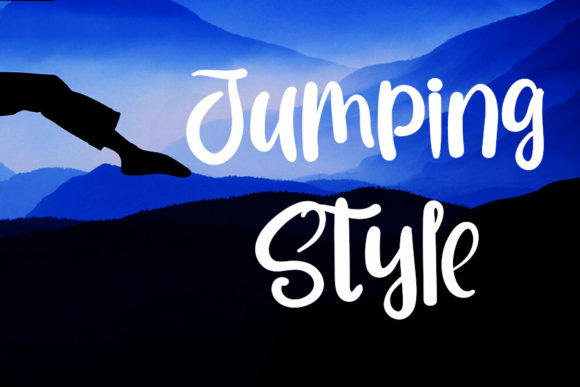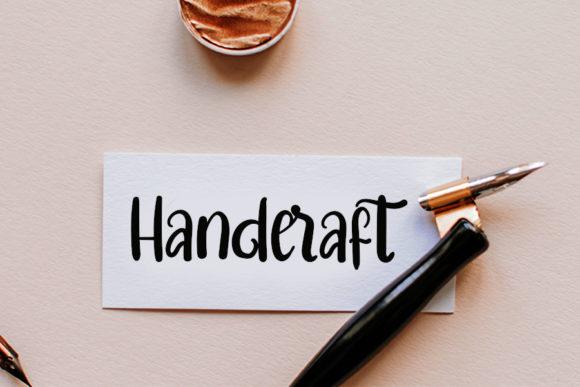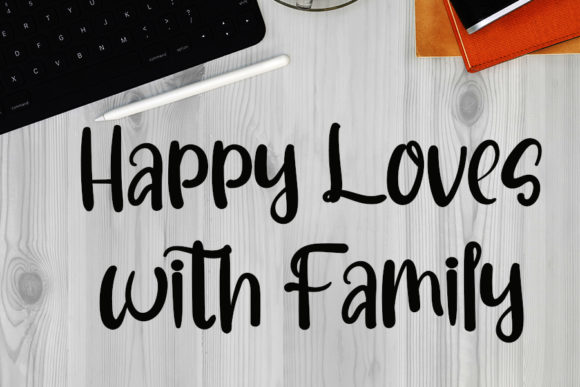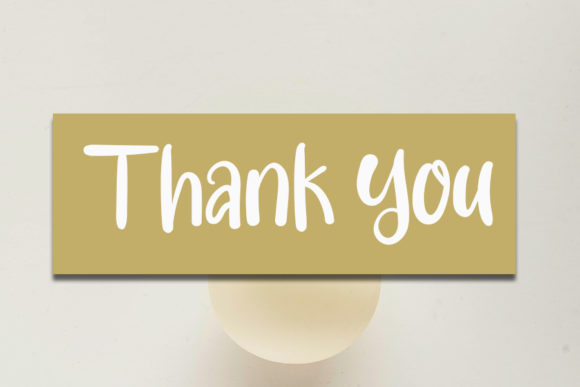
Introduction to Otivia Font
Have you ever found yourself sitting at your desk, surrounded by scraps of paper, glue sticks, and half-finished projects, feeling stuck and unsure of how to take your creative endeavors to the next level? You’re not alone. We’ve all been there, searching for that one special something to elevate our designs and make them truly stand out.
That’s where the Otivia Font comes in – a sweet and clean script font that’s sure to revolutionize your creative projects. With its elegant and trendy characters, this high-quality design resource is the perfect addition to any crafting project or design venture.
Key Features of Otivia Font
- Features a unique and elegant design, ideal for use in branding, typography, and other creative applications.
- Designed at a high resolution, ensuring crisp and clear text output, even at large sizes.
- Includes a comprehensive character set, making it suitable for use in a variety of languages and creative projects.
Honest Review: Otivia Font
I recently had the chance to work with the Otivia Font, and I must say it’s a great addition to my design resource library. ✨ The high quality and modern aesthetic make it perfect for a wide range of creative projects.
One of the things that stood out to me was the transparent background option, which gives me more flexibility when working with the font in different design scenarios.
Here are some of the key features that I liked:
- High quality and modern aesthetic
Of course, no font is perfect, and I did encounter a few limitations. ⚠️ The font can be a bit too thin in certain weights, which can make it difficult to read in small sizes. Additionally, the free download option is limited to a basic set of characters, which may not be suitable for all projects.
Overall, I’m impressed with the Otivia Font, and I would definitely recommend it to designers looking for a high-quality, modern font. With a few tweaks to address the limitations, I think it could be a top-notch design resource.
For the most out of Otivia Font, experiment with different font sizes, colors, and styles to create visually appealing designs. Common use cases include branding, logos, and marketing materials. With its transparent background feature, Otivia Font is ideal for creative projects that require a touch of elegance and sophistication.